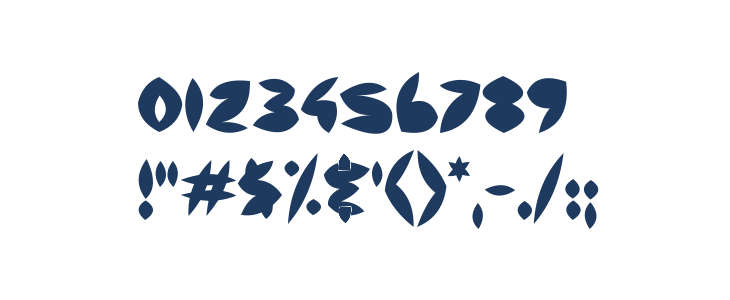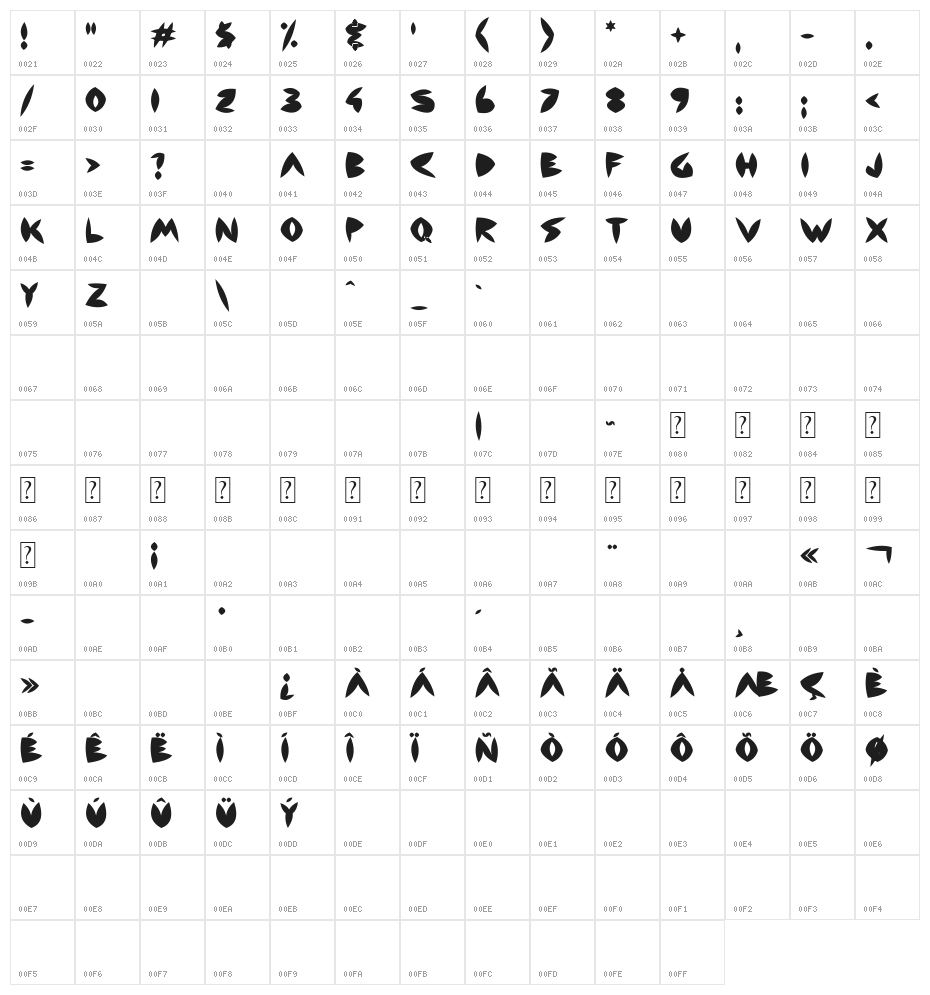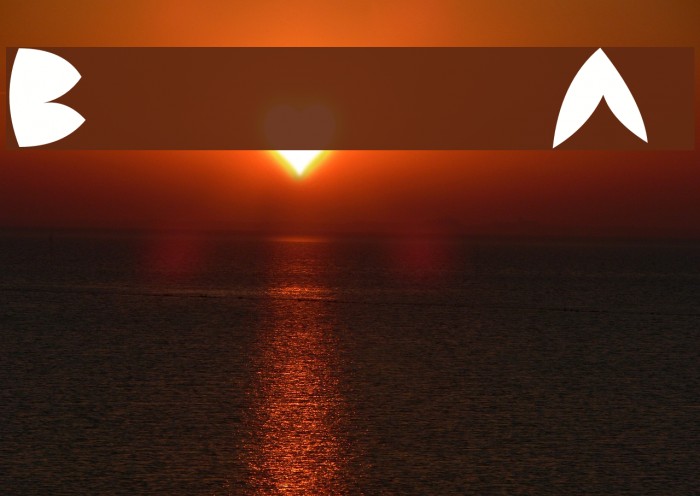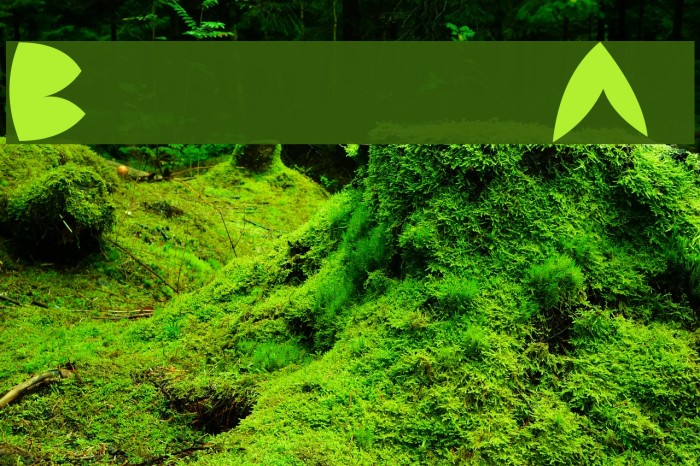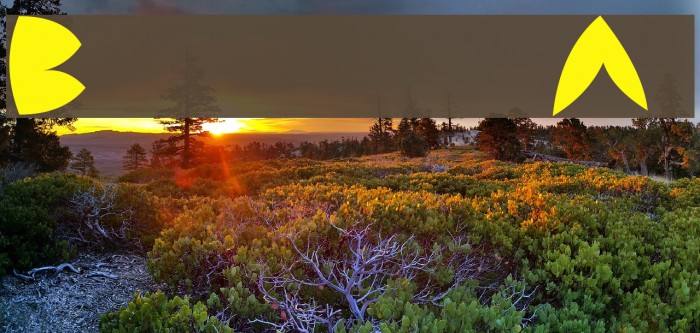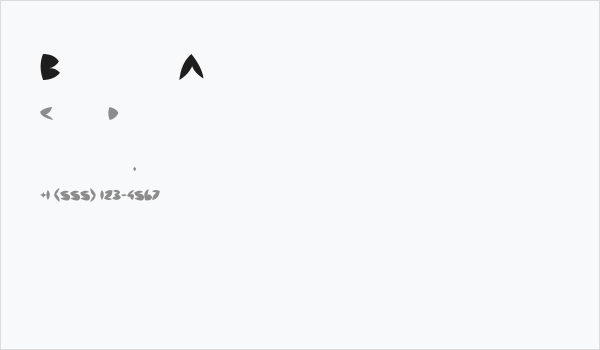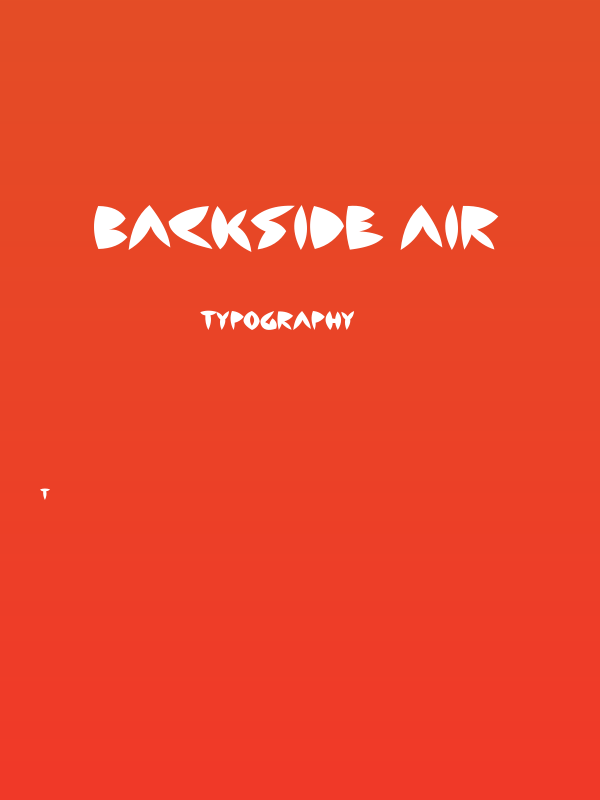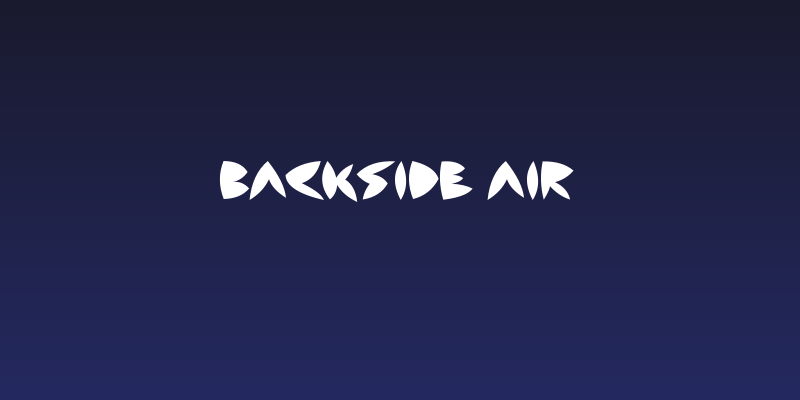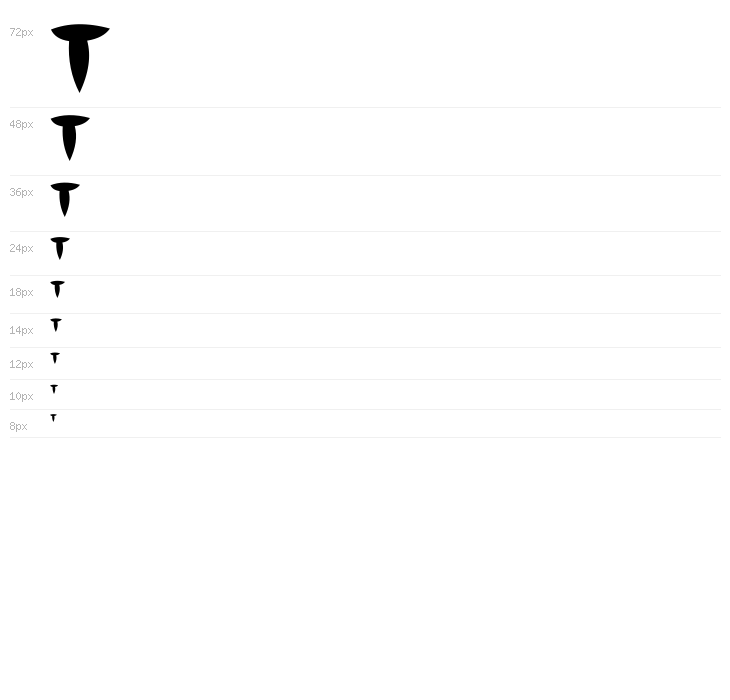
Backside Air Font
Backside Air Description
This font features bold, angular characters with a distinct, edgy style. The uppercase letters are crafted with sharp, pointed edges, giving them a dynamic and aggressive appearance. The numbers and special characters maintain this bold and striking design, ensuring consistency throughout. The font's unique shape and heavy weight make it stand out, ideal for projects that require a strong visual impact. Its artistic flair and unconventional forms suggest a modern, rebellious aesthetic, suitable for creative and daring designs.
| Proposed Projects | Perfect for skateboarding brands, extreme sports posters, music album covers, and urban-themed designs. |